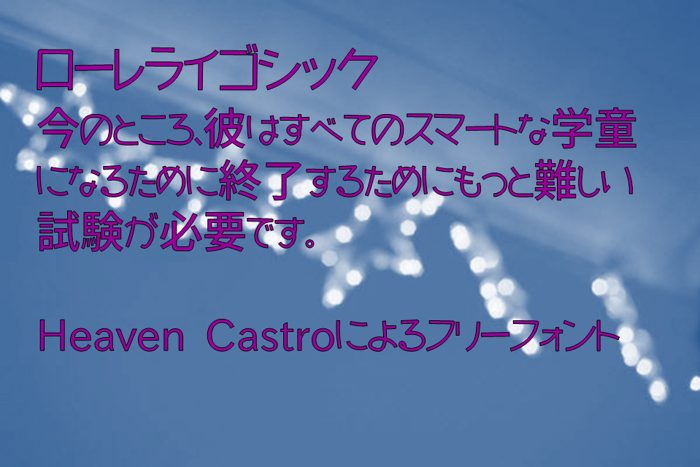
Lorelei Gothic Font
Lorelei (pronounced loh-REH-ly) is a series of Japanese fonts created by Carl Heavenezer M. Castro, and is named after the Touhou Project character Mystia Lorelei, who is also the main member of Team 9. This is the Gothic font, which serenades the inspiration of the Japanese silly handwritten lettering.
@fontspace The differences that this font has IPA Gothic alphabets instead of Source Han Sans alphabets and the kana characters are (mostly) the original designs.
@fontspace Also, the half-width kana characters are still in IPA Gothic instead of Source Han Sans. It also lacks many of the OpenType features like the vertical alternates.
@fontspace And the full-width exclamation point is also different.
What's the main difference between this and IPA Gothic / Genshin Gothic?